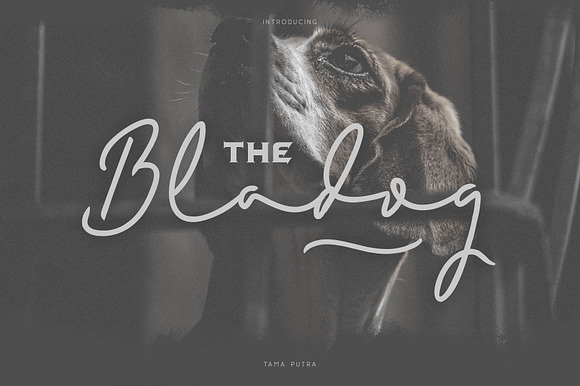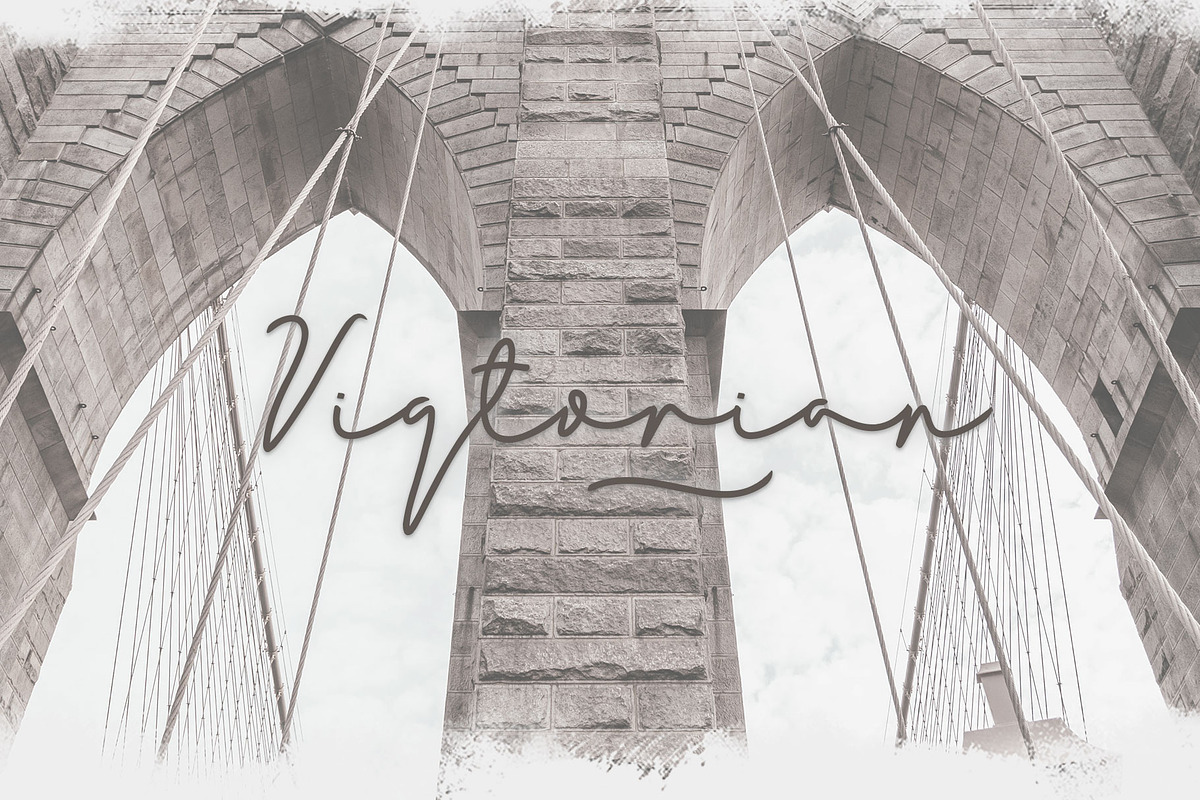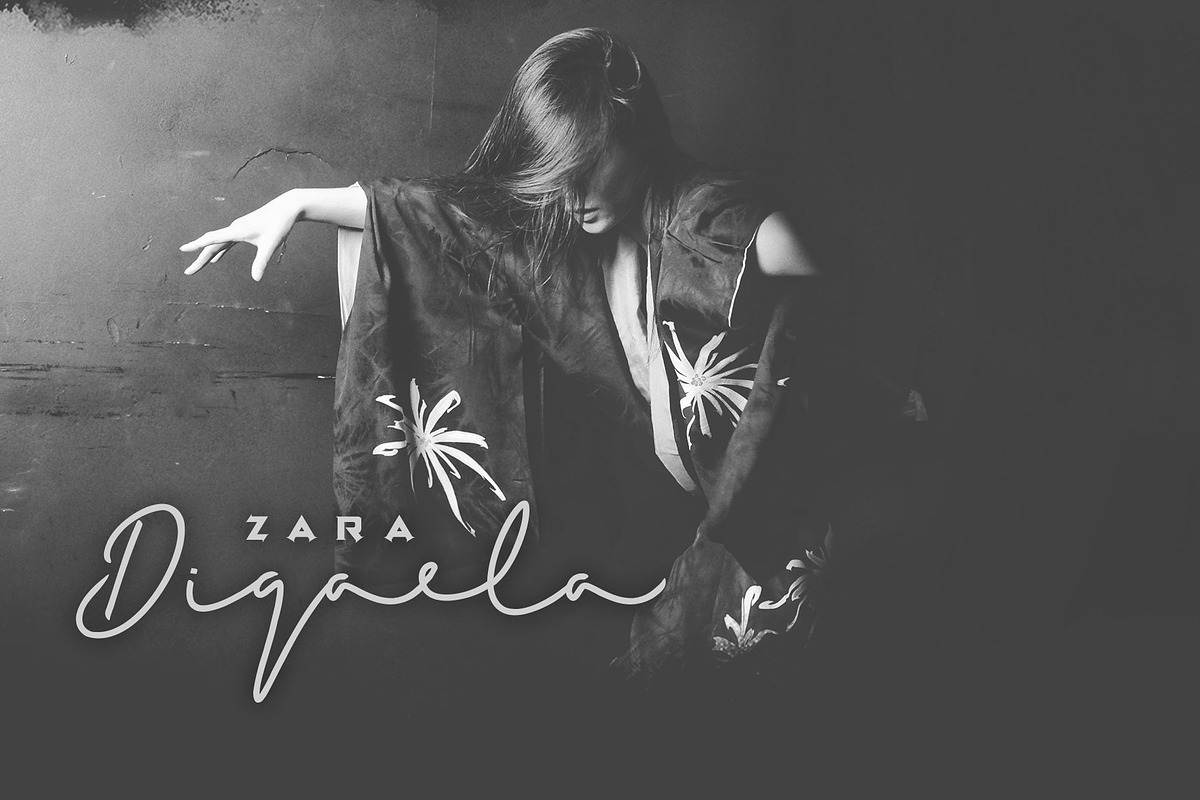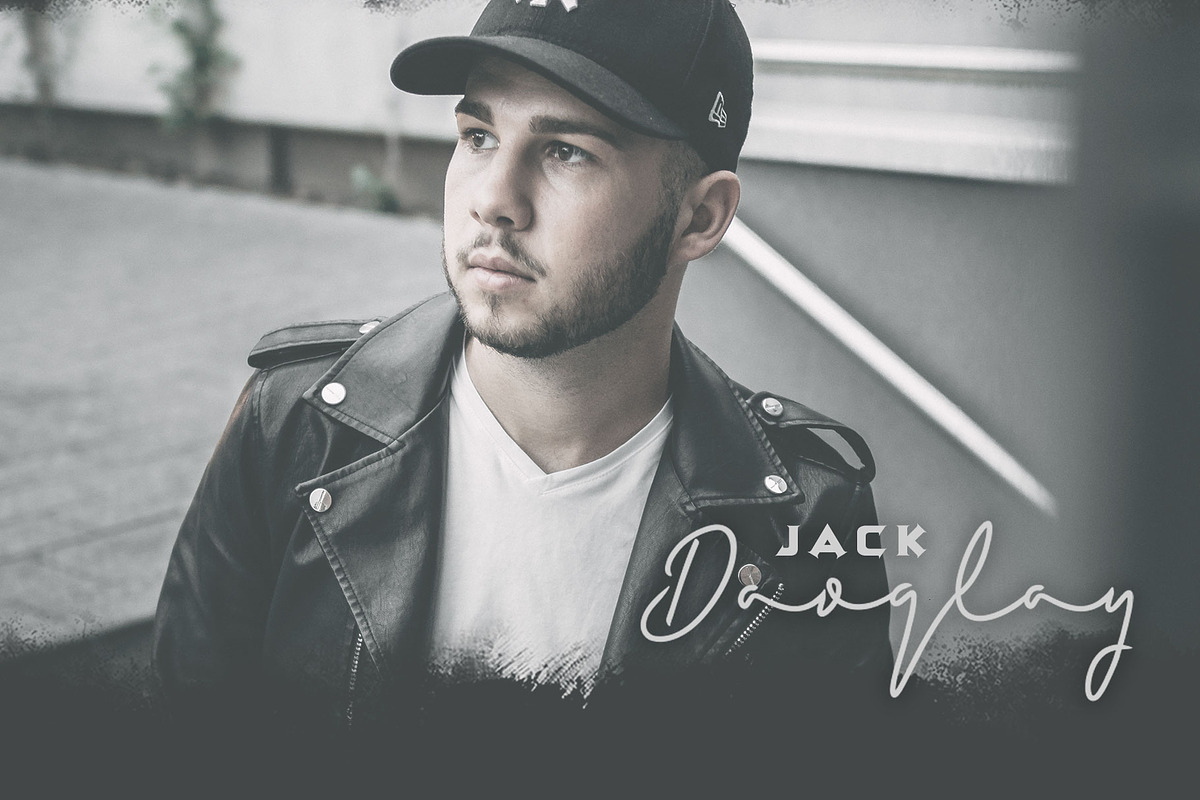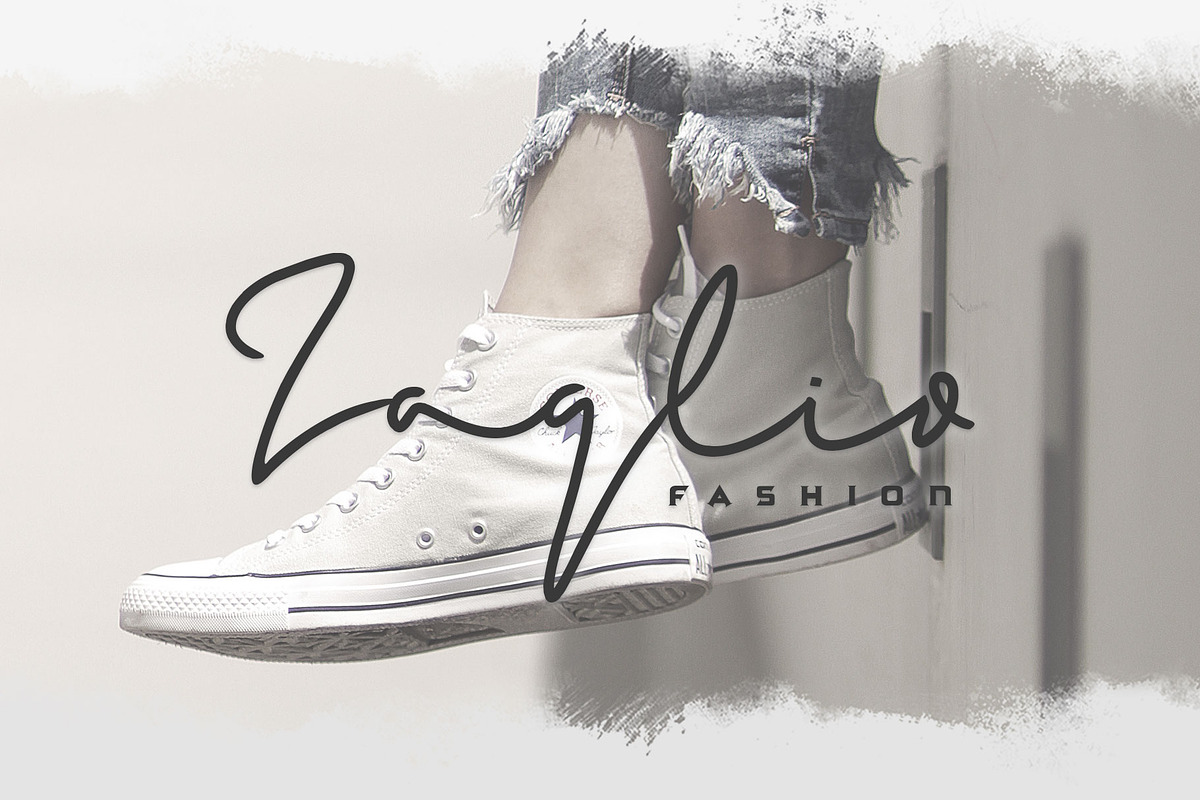
Bladog Font
Bladog is a handwritten script and display font duo. It is suitable for any design needs, branding, cover title, t-shirts, posters and more.
It includes multi-lingual and currency support, numerals, and punctuation. It comes comes with stylistic alternates & contextual alternates.
Stylistic Alternates & Contextual Alternates
Bladog is suitable font for creating beautiful things and many creative work.
Bladog Font by Vacatype Co. fits naturally into Branding, posters, packaging, typography.